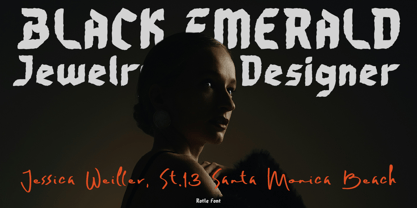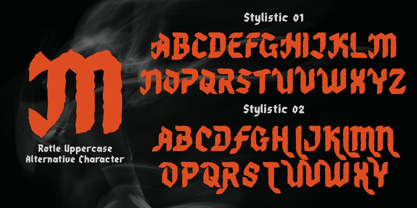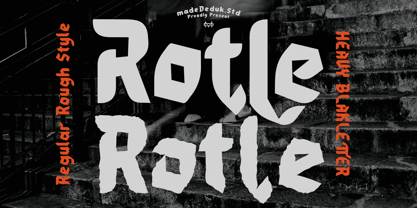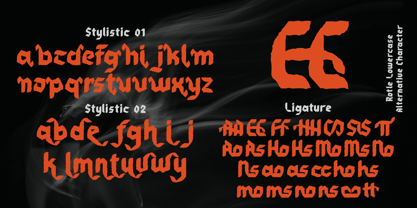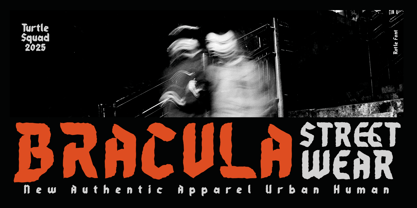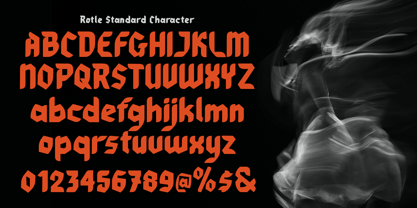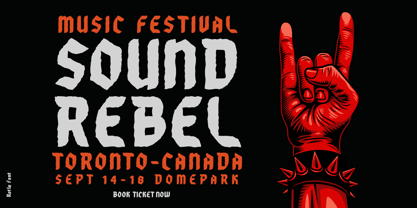
Rotle
by madeDeduk
Really excited to introduce Rotle it is a heavy blackletter made with a stylish impression and supported by alternatives with references to various letters that I combine. They come with 2 style fonts and are suitable to create any branding, product packaging, invitation, quotes, t-shirt, label, poster, logo etc.